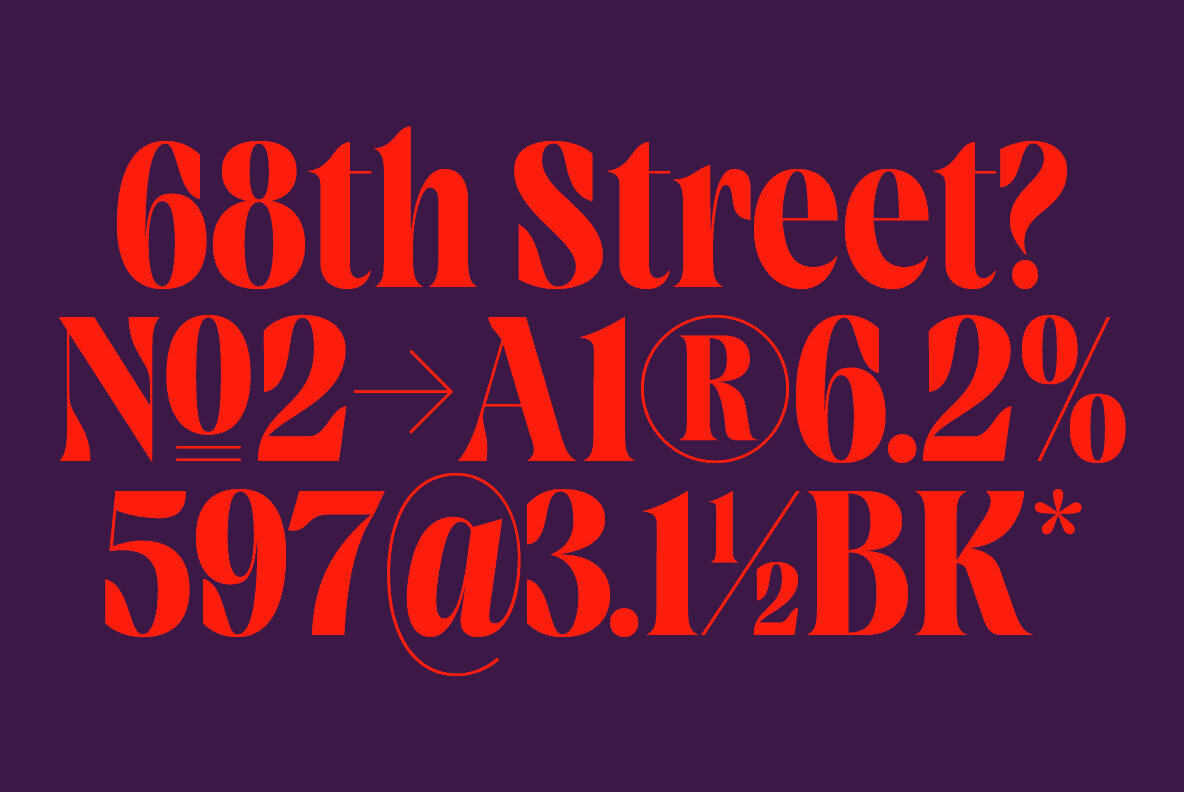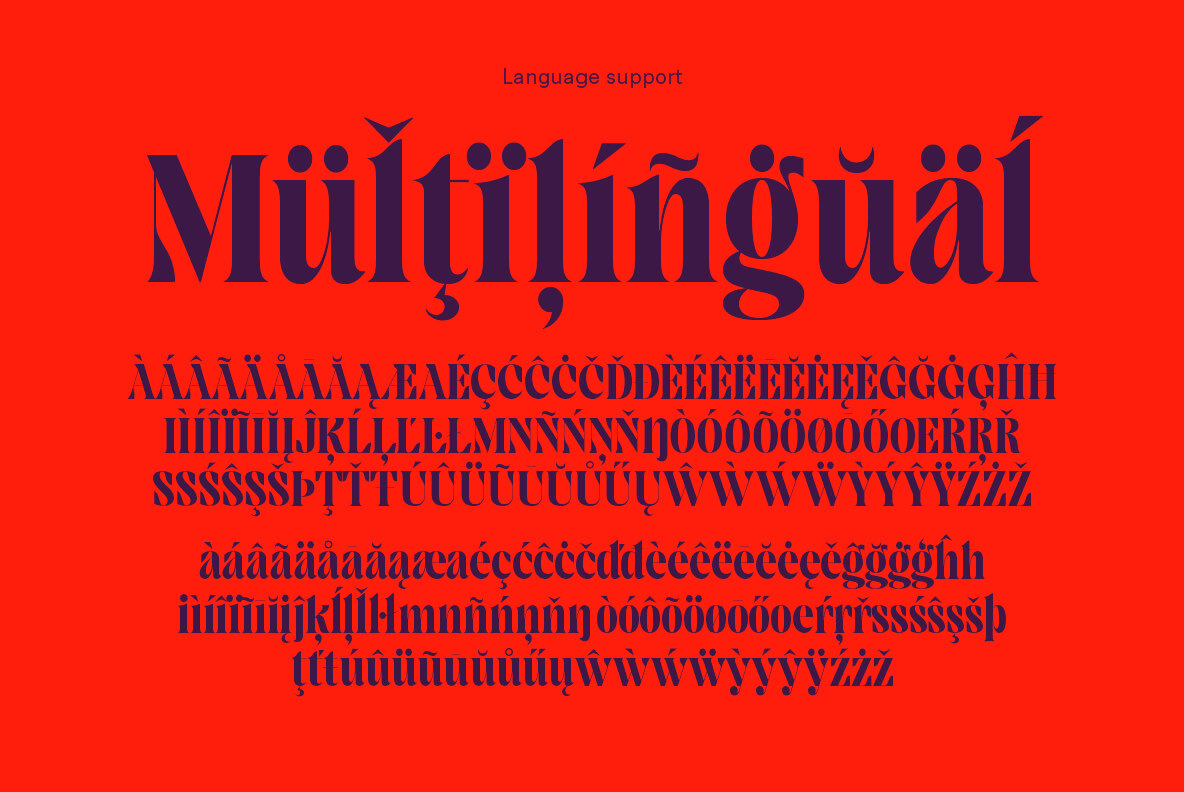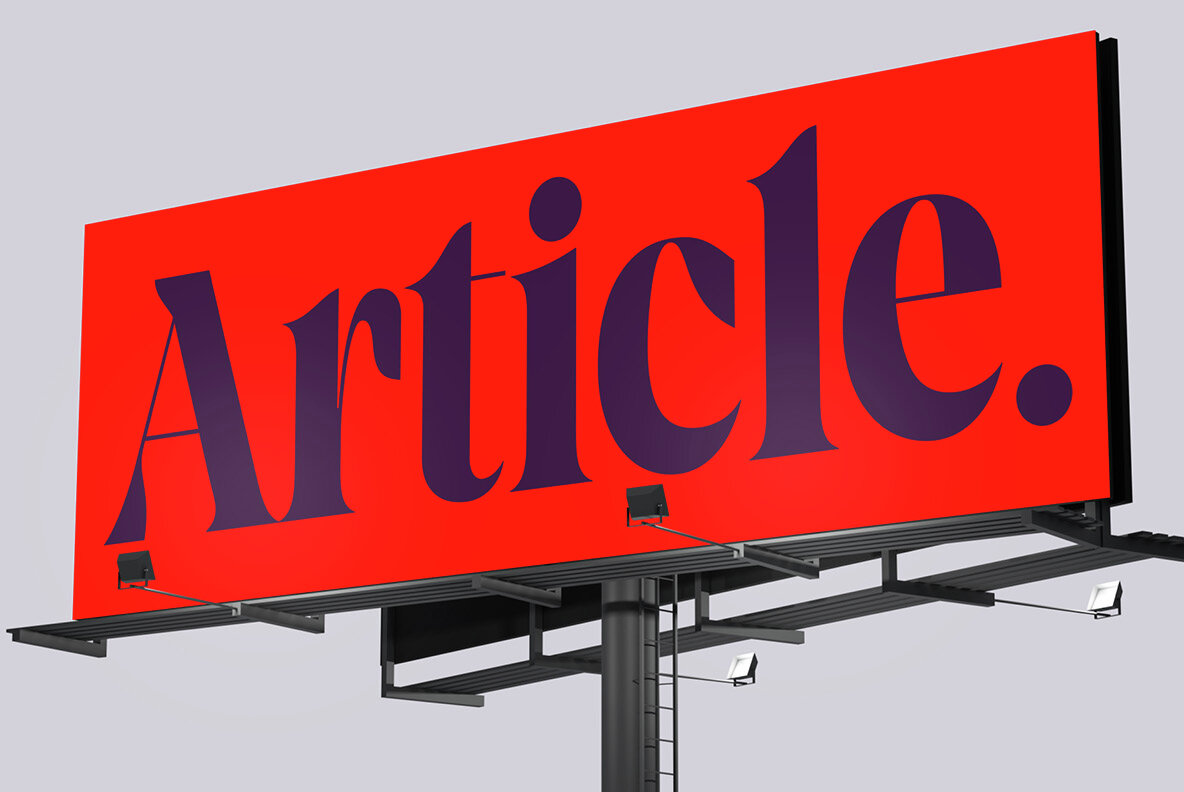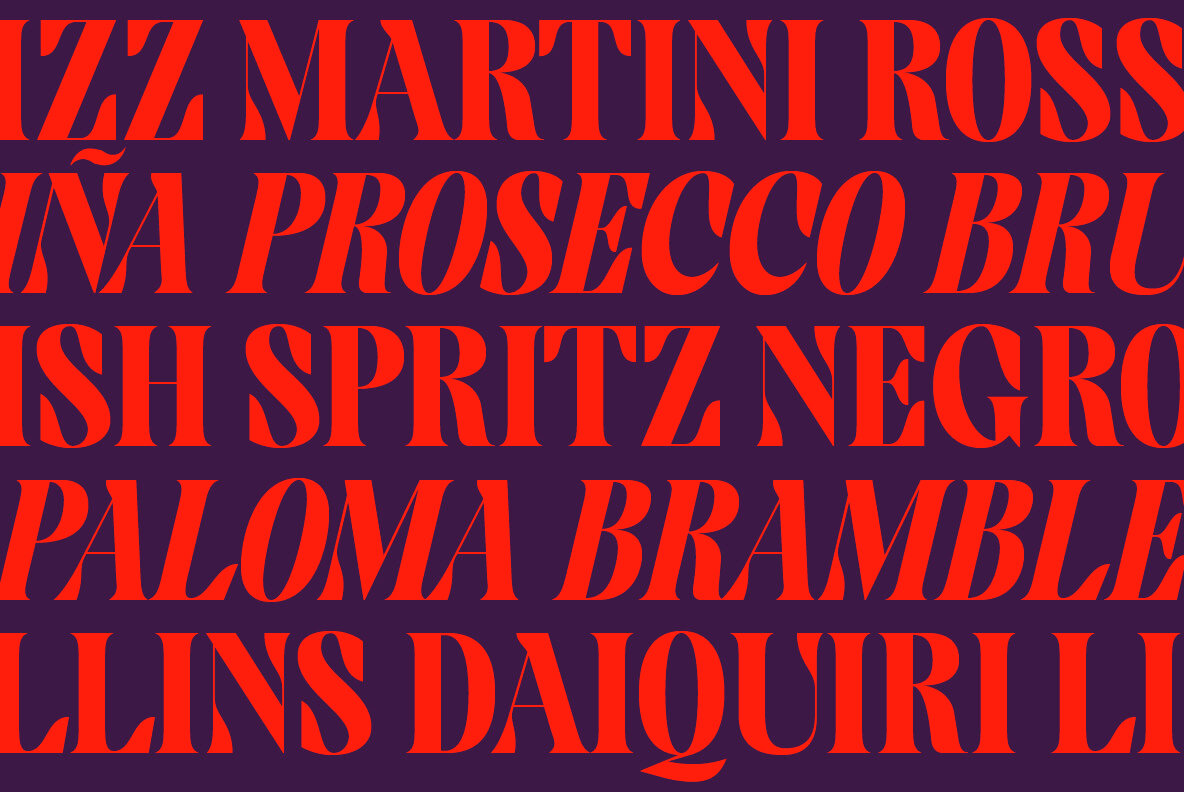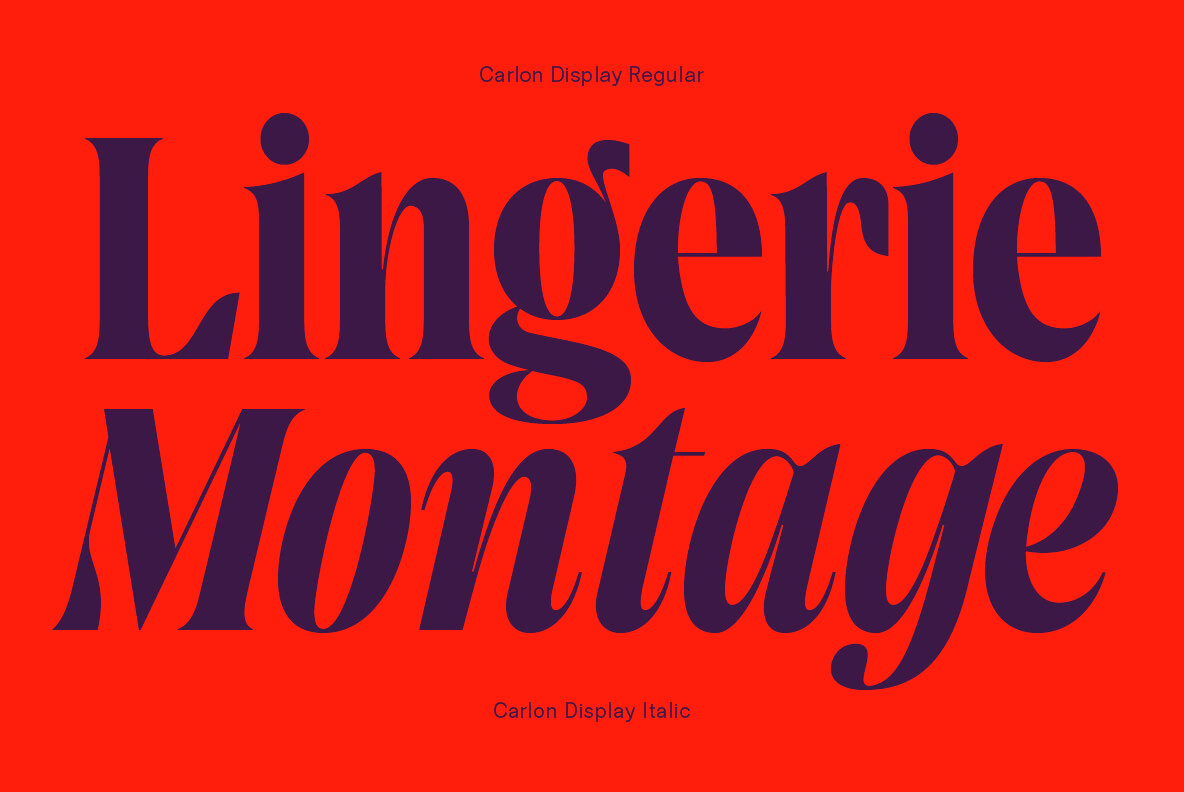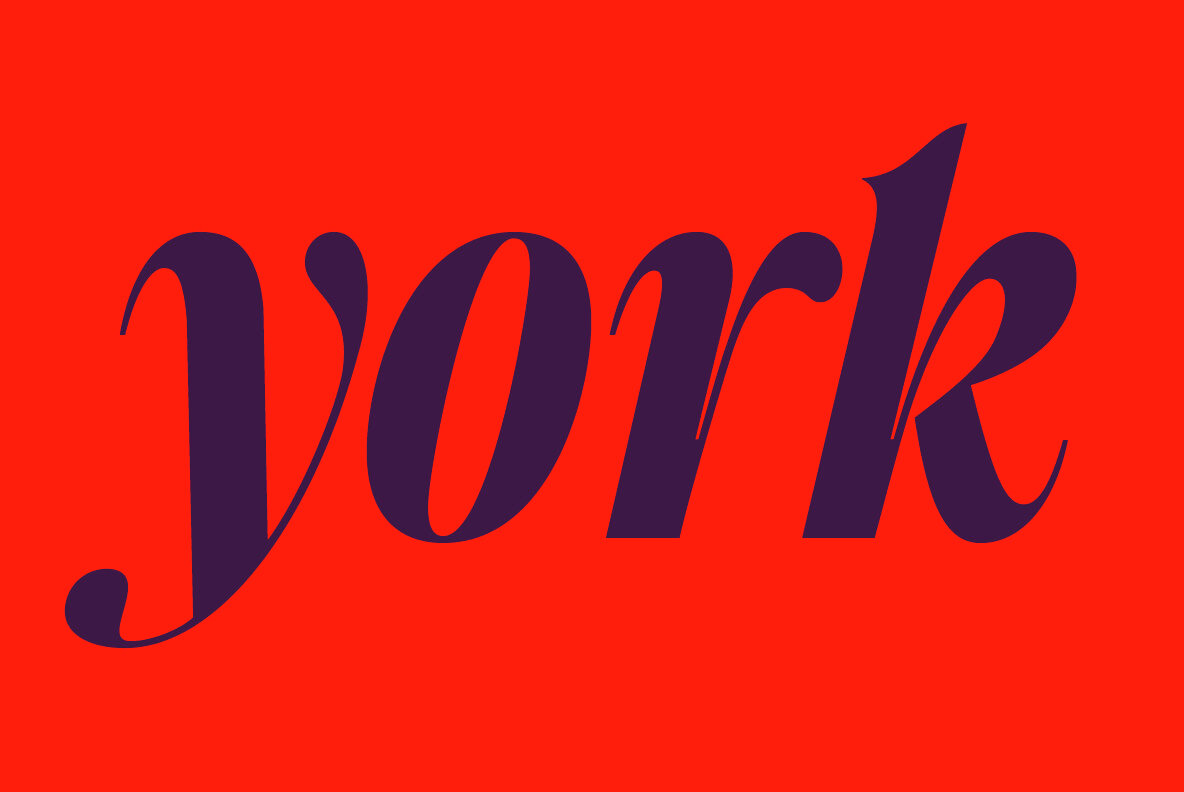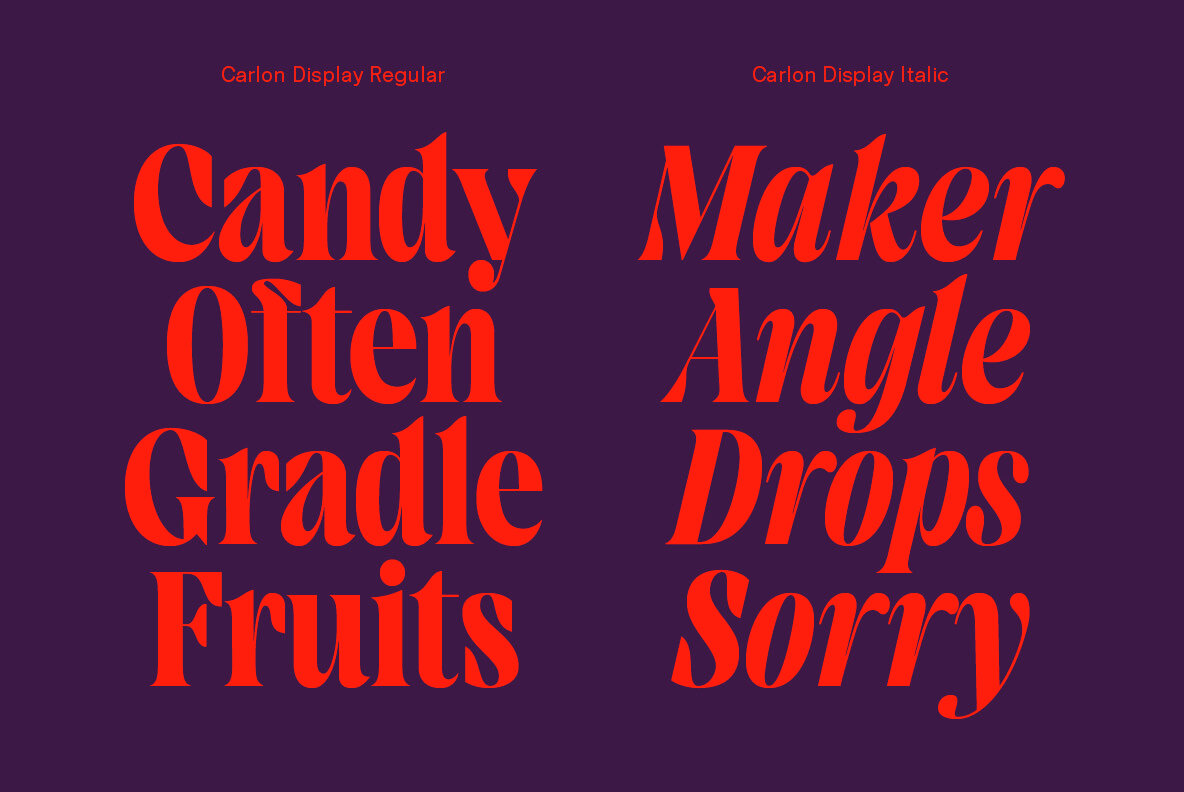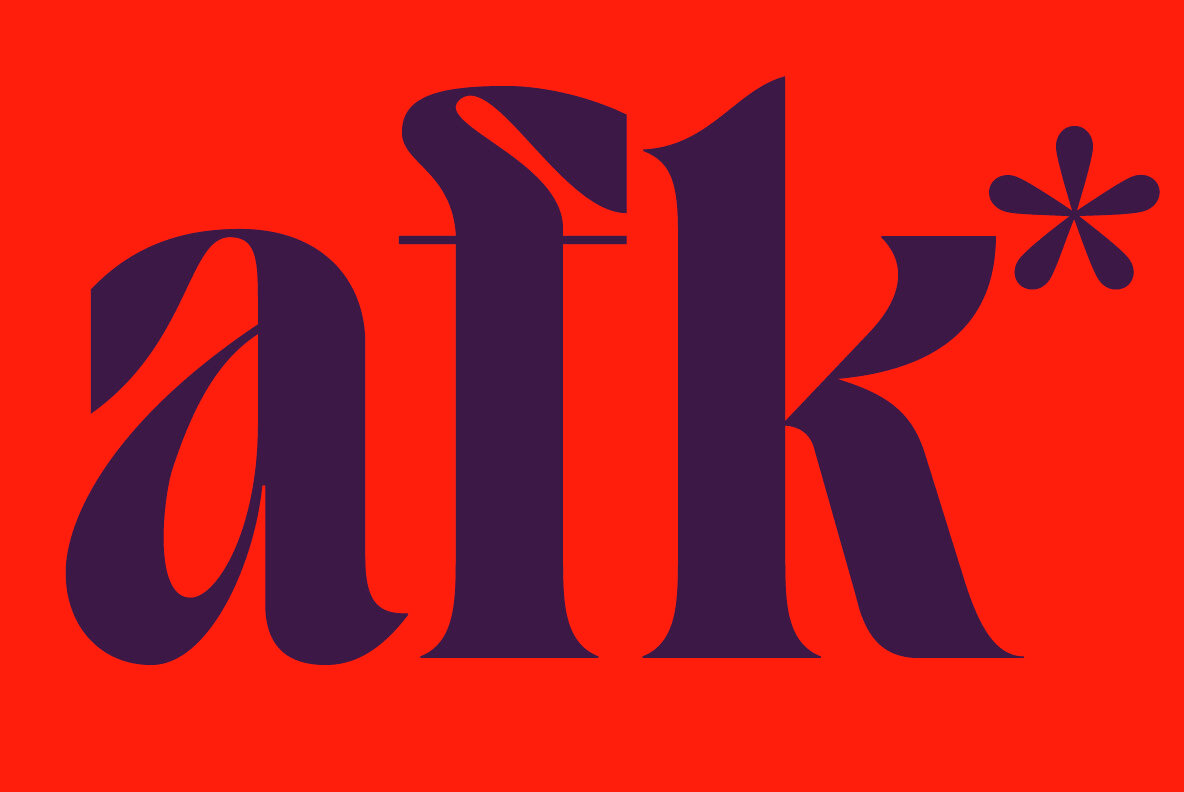
Carlon Display Font
Carlon Display Regular
Carlon Display Italic
Carlon is a high-contrast serif display typeface with a bold and elegant visual style, perfectly suited for making a striking impression. Its vintage curves and ornate design make it ideal for creating captivating headlines, retro-themed projects, and artistic branding materials. Perfect for designers seeking to add classical drama to luxury branding or editorial layouts.